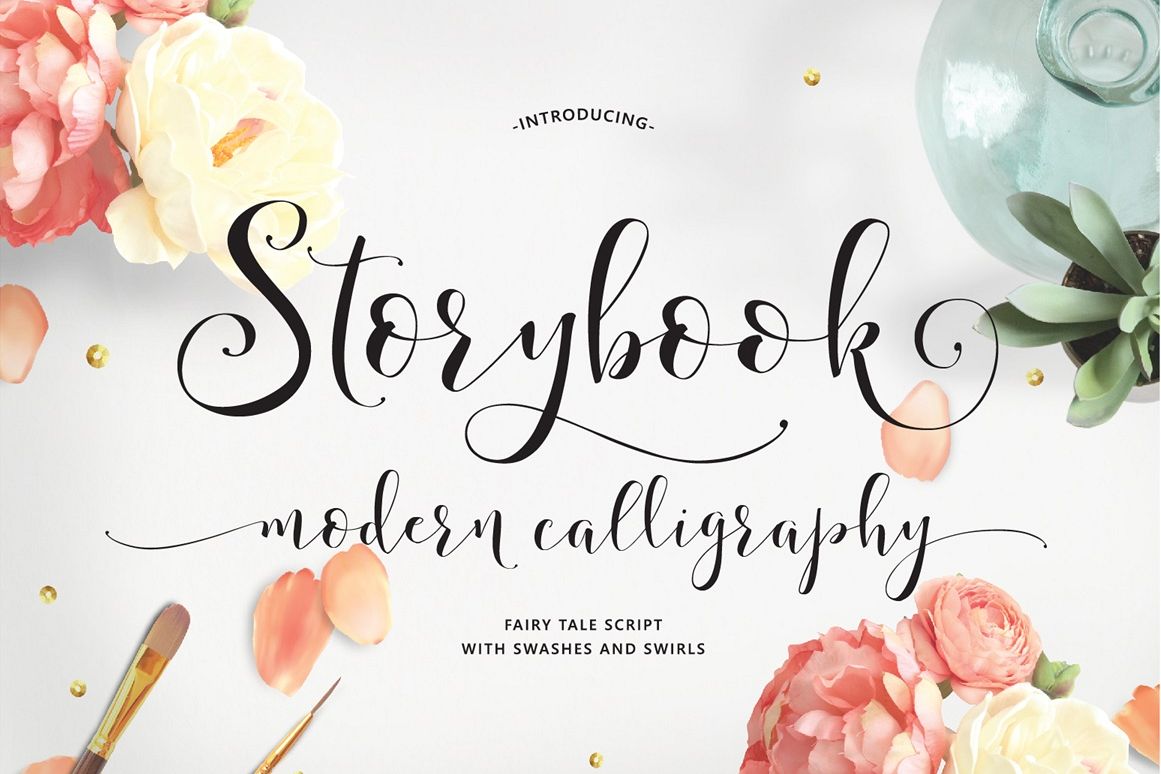
Storybook Calligraphy
Meet Storybook!
You asked for longer swashes and bigger swirls - so here they are.
This fresh, warm, decorative hand-lettered typeface is perfect for weddings, logos, stationery & more!I've included 4 files of additional decorative glyphs. Everything you create will be a completely unique work of art. And so much fun!! The combinations are endless!
5 Lower-case styles with Swashes & Swirls
Stylistic Common Letter Combinations
Multi-lingual Glyphs Also with sashes and swirls!
• (Latin-1 Supplement) ÀÁÂÃÄÅÆÇÈÉÊËÌÍÎÏÝ ÑÒÓÔÕÖØŒÙÚÛÜ àáâãäåæçèéêëìíîïñòóôõöðøœùúûüýÿ
• (Latin Extended-A) ????????????????????????????????? ??????????????????????????????Œœ???? ????Šš??????????????????Ÿ????Žž
International and Special Punctuation